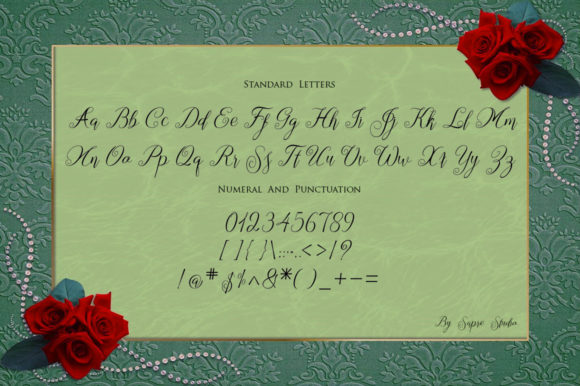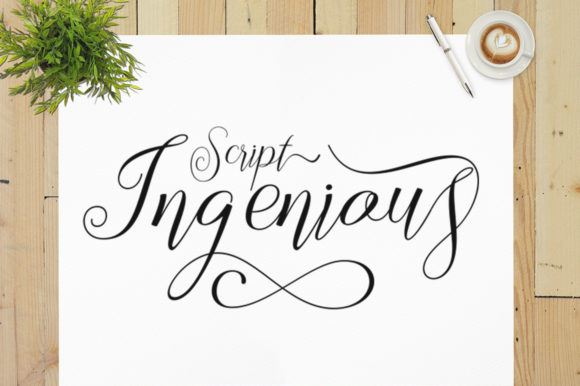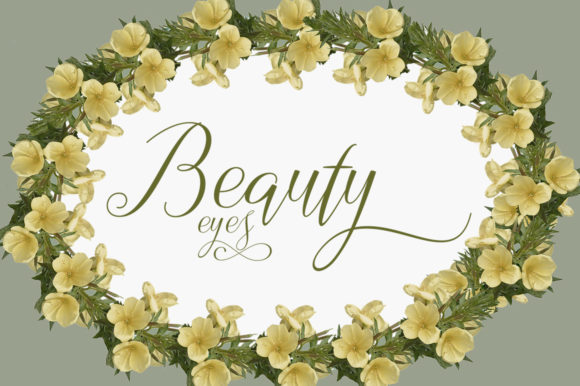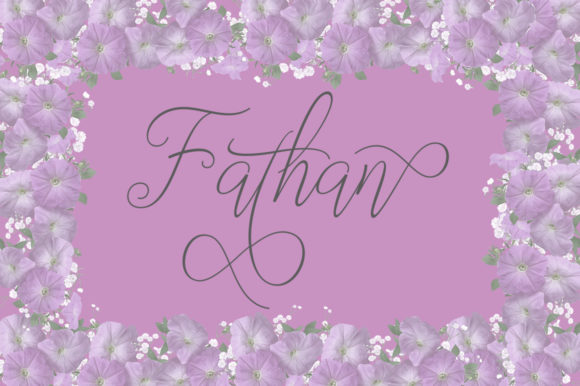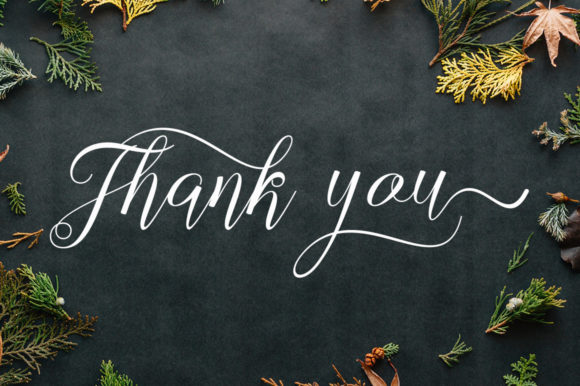
Introduction to Singles Font Font
Fonts play a crucial role in design, and the Singles Font font is a typeface that brings both character and versatility to any project. Whether you’re working on a branding project, a website, or a print design, the Singles Font font offers a unique style that can elevate your work.
The Singles is a lovely script font.
It includes basic, fine lines which will bring a classic and elegant touch to your designs It can be used easily and simply and is perfect for every design which needs a luxurious touch.
Key Features of Singles Font Font
• ✅ High-quality typeface designed for professional use
• ✅ Includes a wide range of glyphs and characters
• ✅ Ideal for logos, branding, websites, and print
Why Choose Singles Font Font?
The Singles Font font is more than just a typeface – it’s a design tool that helps you communicate your message with style and clarity. Its unique character set and versatile design make it suitable for a wide range of applications, from elegant invitations to bold headlines.
With its carefully crafted letterforms and balanced proportions, the Singles Font font ensures readability and visual appeal across all mediums.
What makes Singles Font font special?
The Singles Font font stands out with its unique design, exceptional readability, and versatility across various design applications.